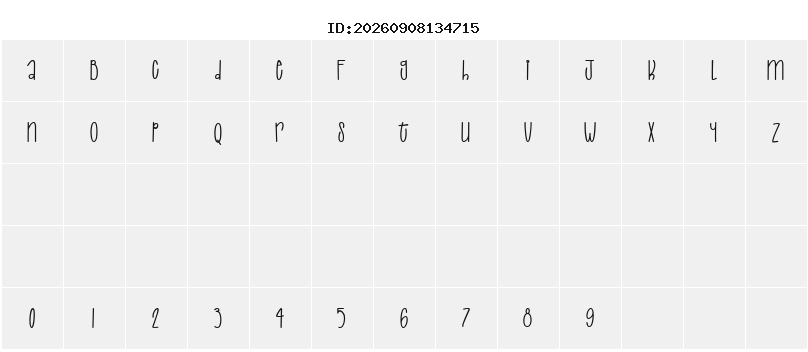
• Font Name: UNE GRENOUILLE LE SOIR
• Manufacturer: Maelle.K
UNE GRENOUILLE LE SOIR.ttf is a modern, elegant sans-serif font designed for ultimate readability and visual harmony. Perfect for branding, headlines, web design, and print materials.